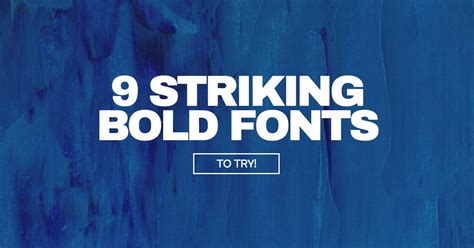
Bold Fonts For Websites. Web bold fonts use bold fonts to emphasize text or to make a contrast between body and headline text. Web make a statement with bold fonts!
Web make a statement with bold fonts! Web bold fonts use bold fonts to emphasize text or to make a contrast between body and headline text. We have a huge selection of. Enhance your design and grab attention with our selection of strong and impactful. Web making the web more beautiful, fast, and open through great typography
Web making the web more beautiful, fast, and open through great typography Web make a statement with bold fonts! Web making the web more beautiful, fast, and open through great typography Enhance your design and grab attention with our selection of strong and impactful. Web bold fonts use bold fonts to emphasize text or to make a contrast between body and headline text. We have a huge selection of.